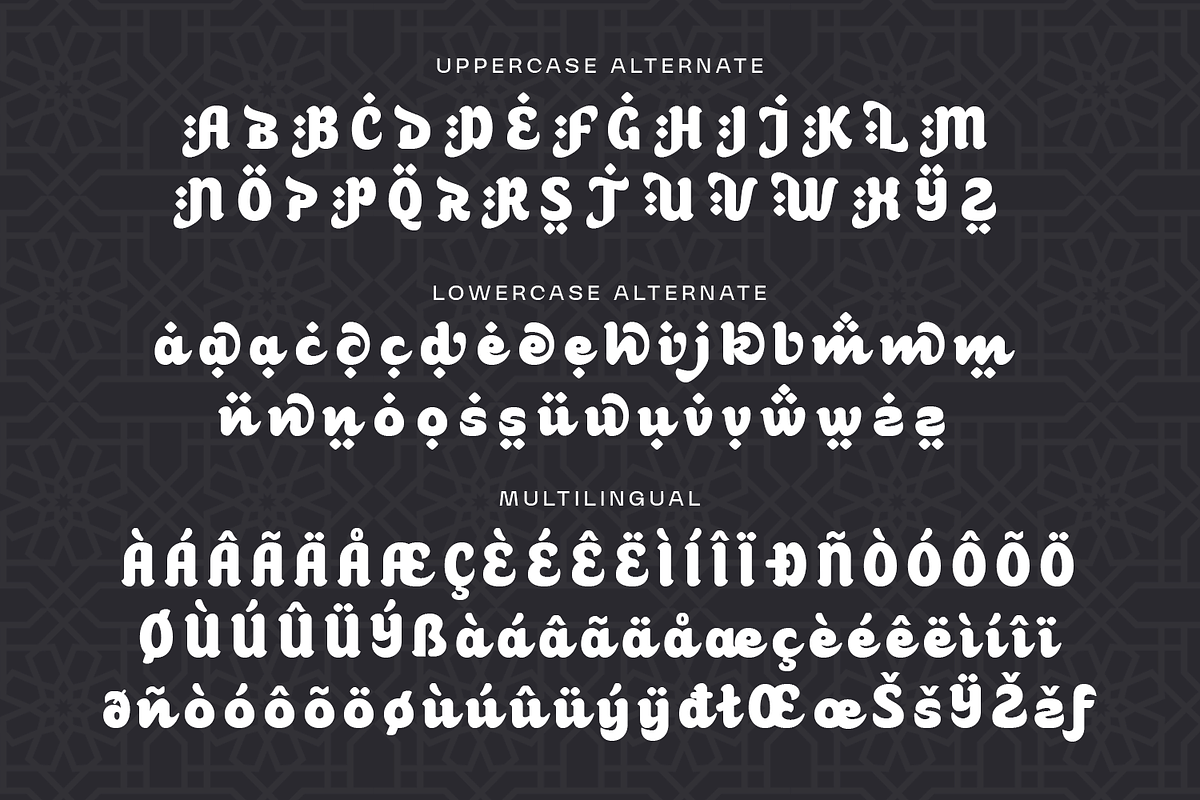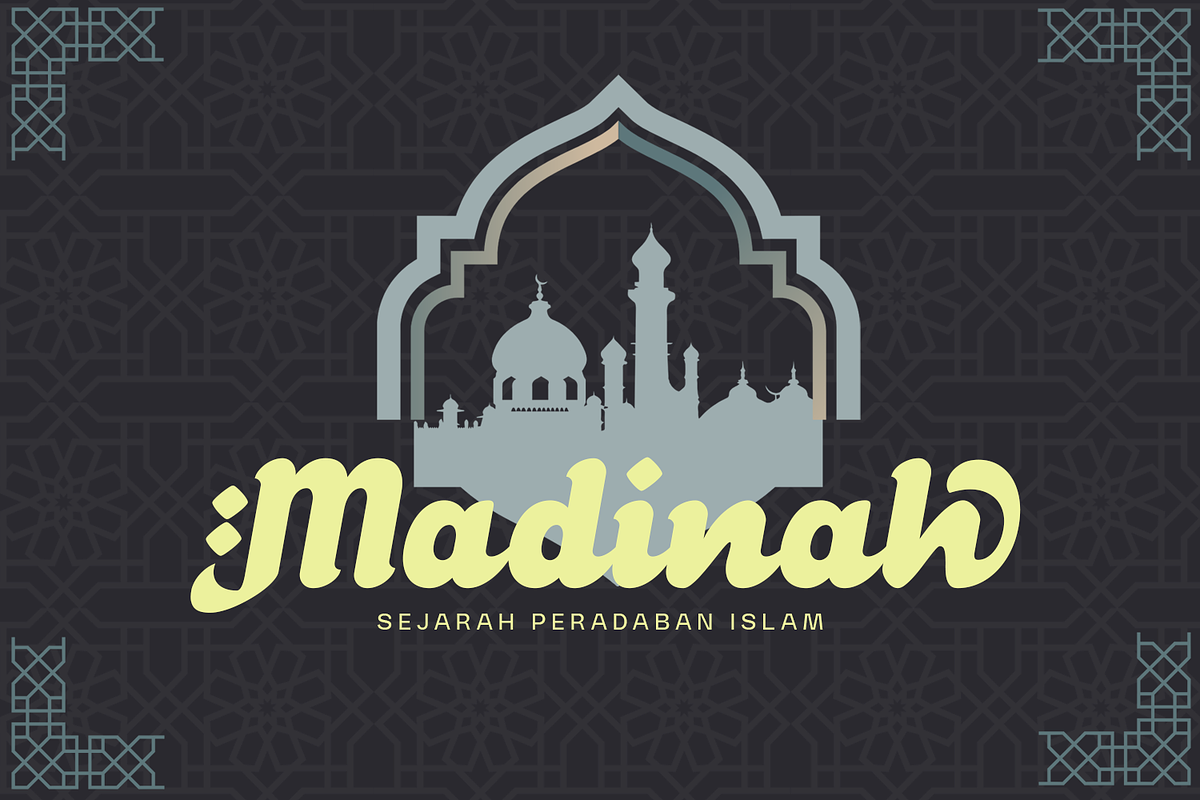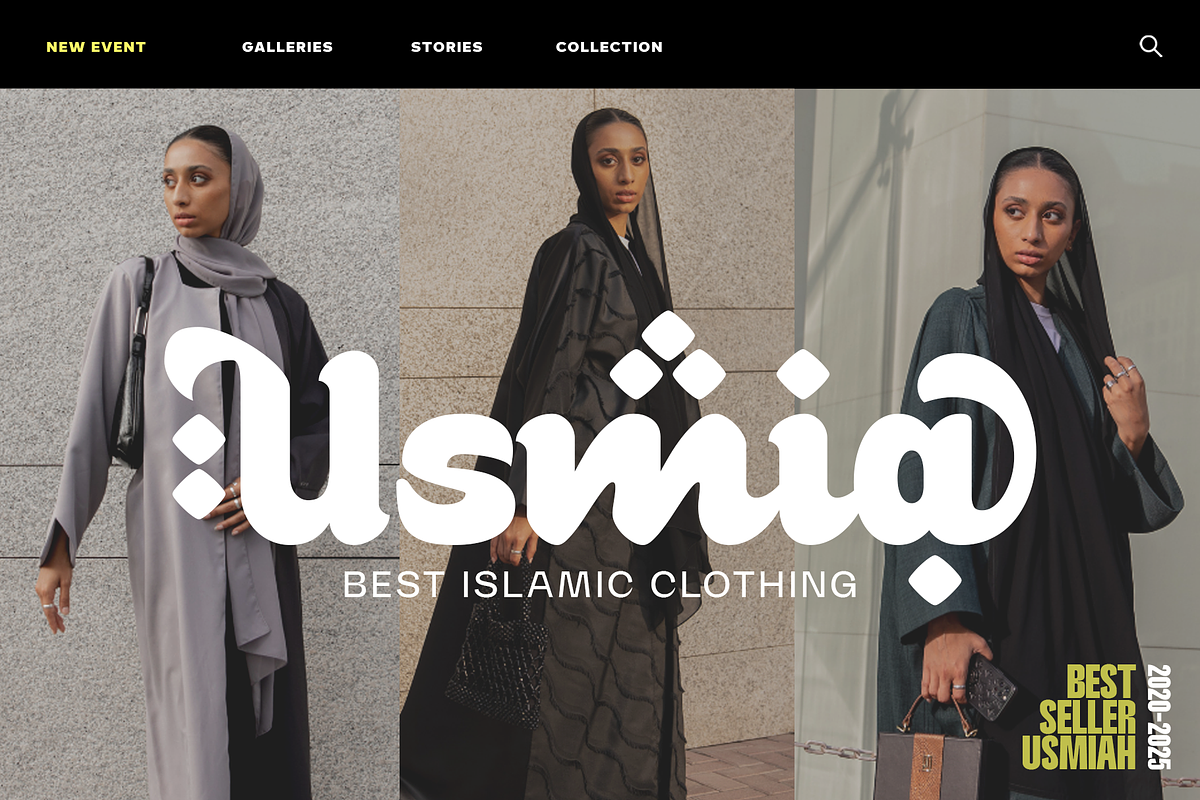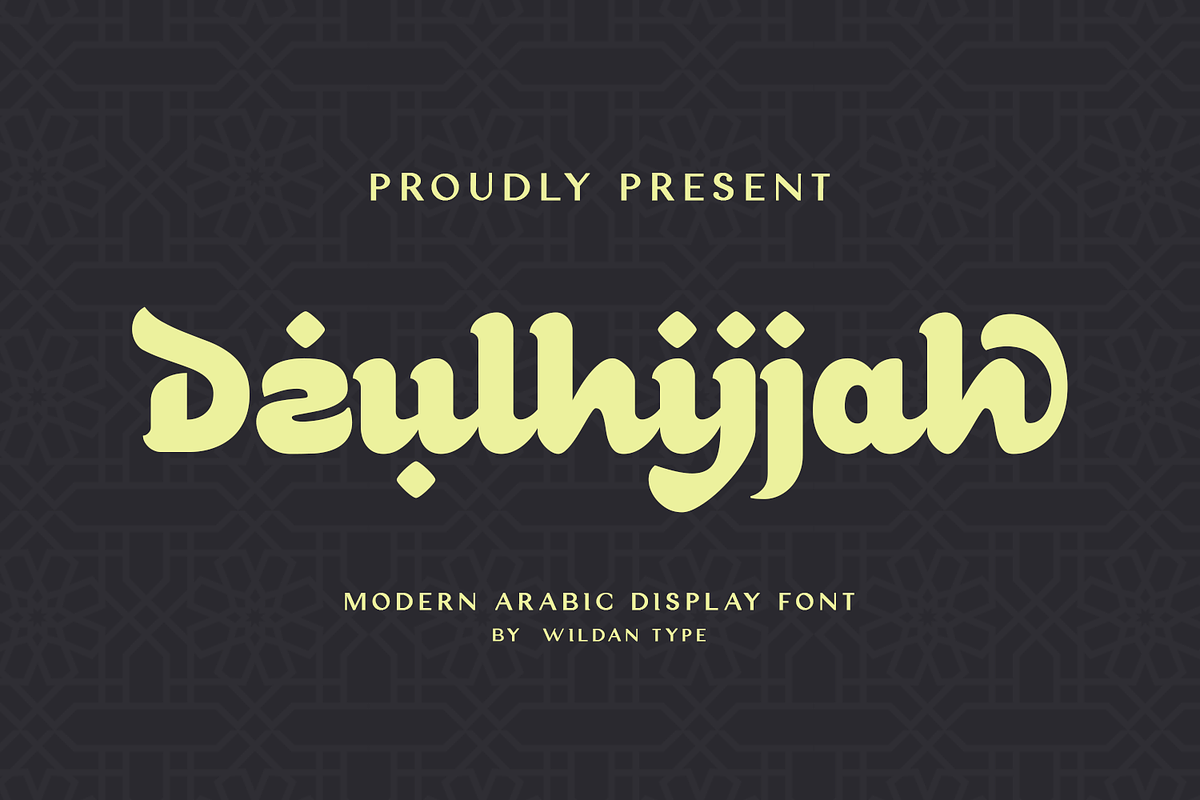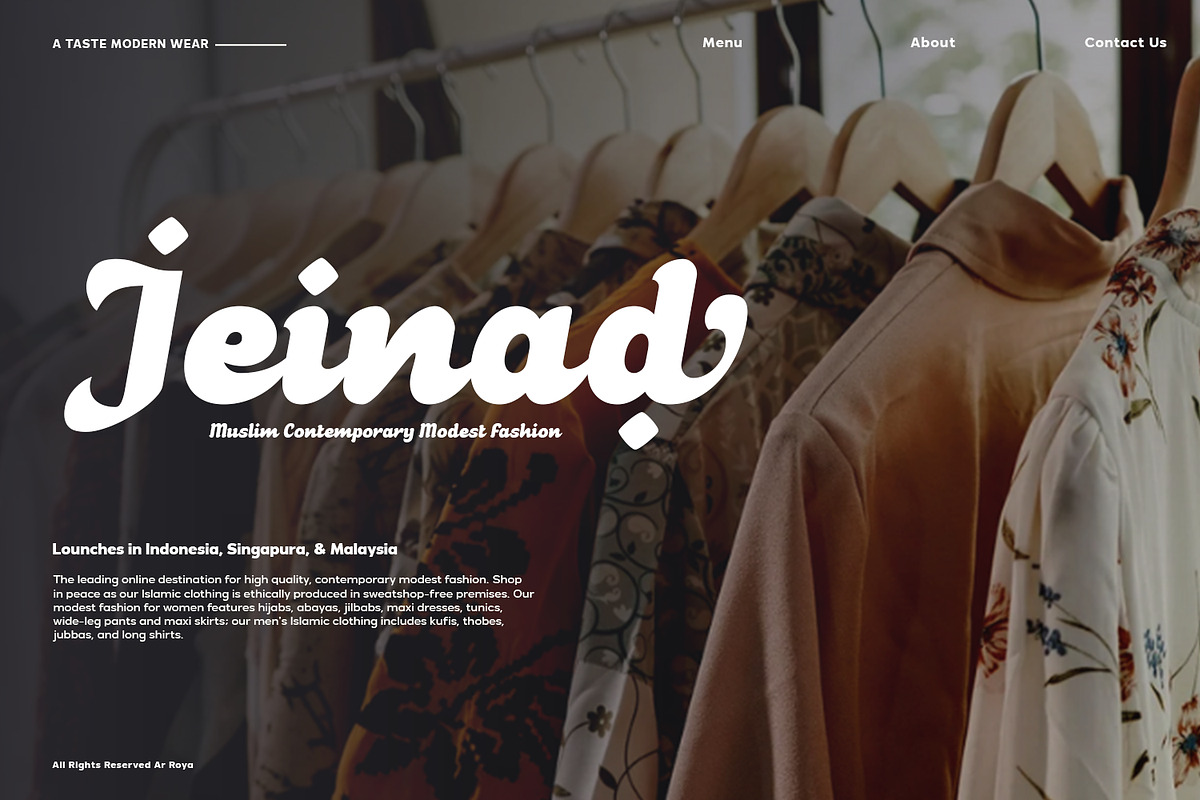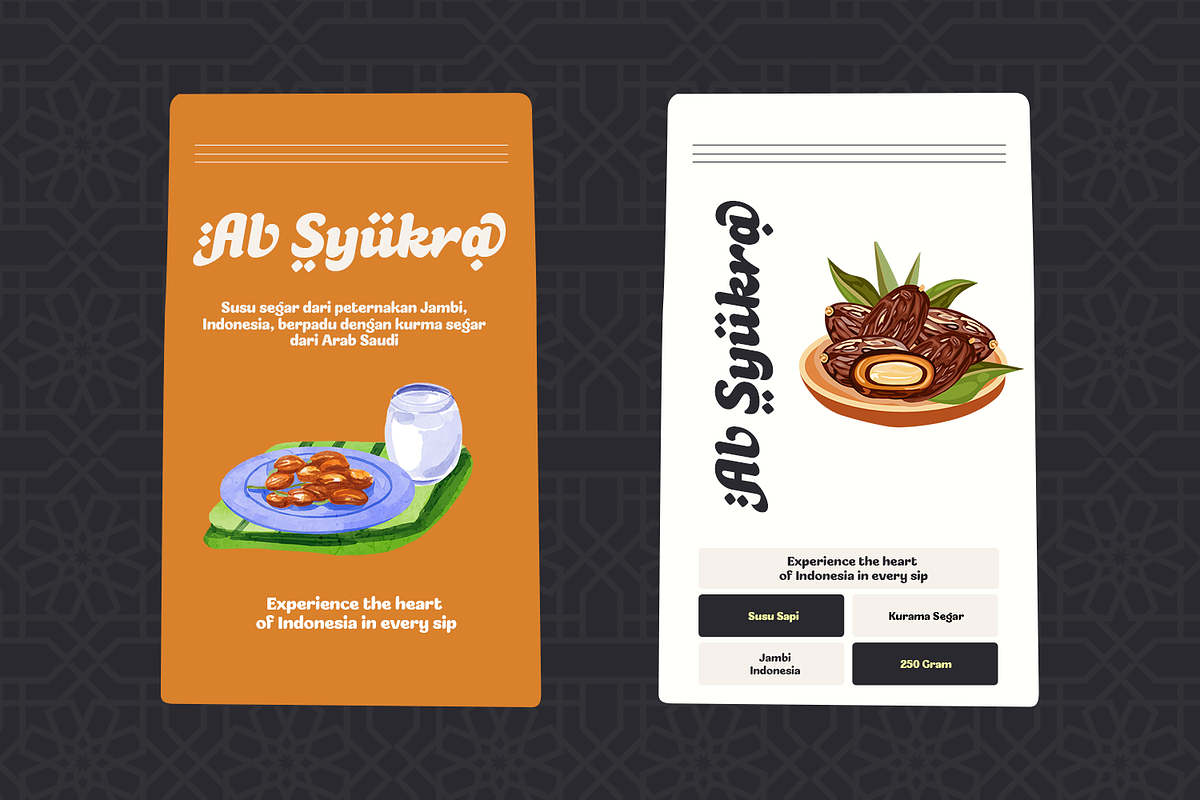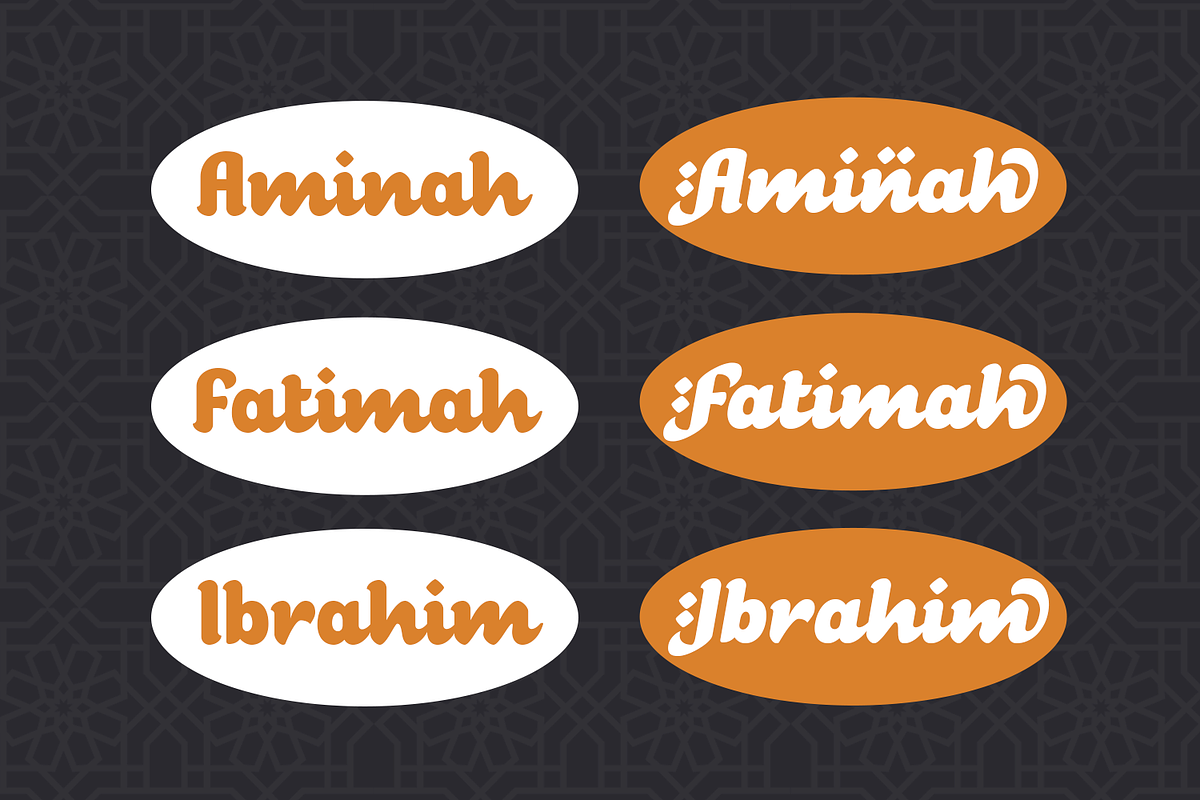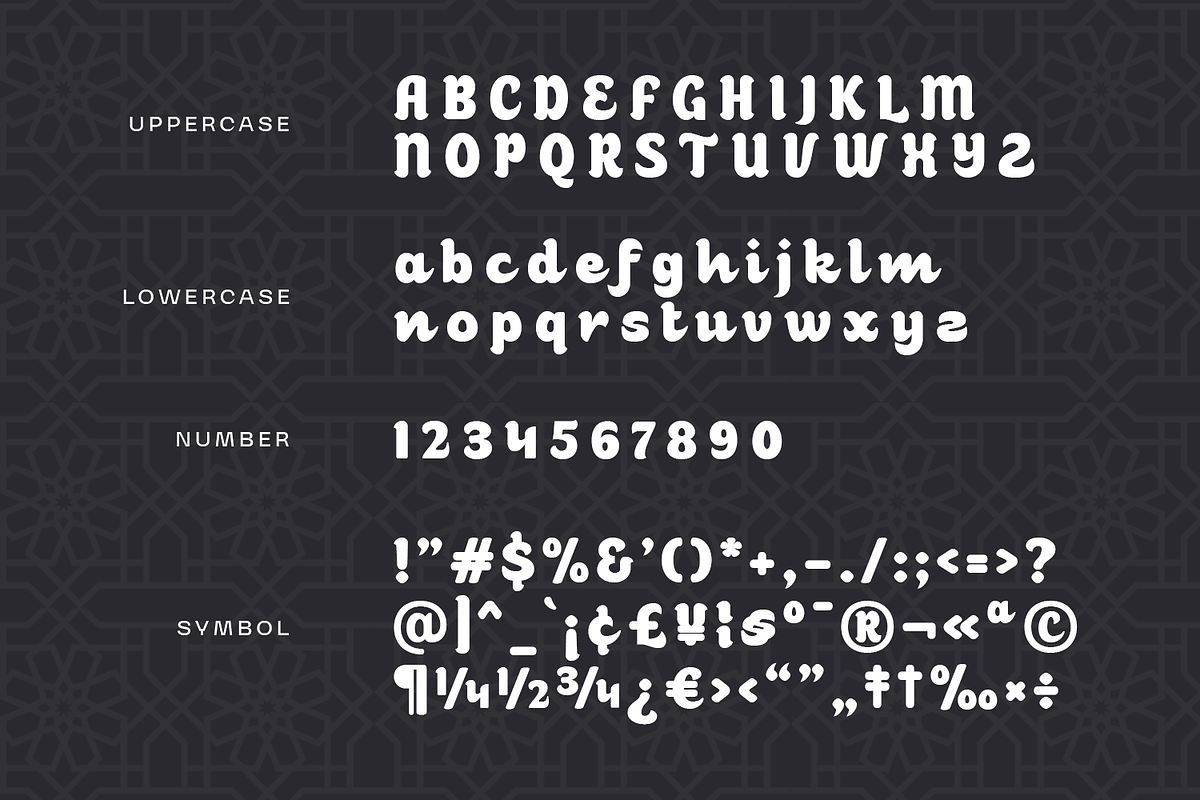
Dzulhijjah
Dzulhijjah is a modern Arabic font, with a warm, soft touch, but still displays luxury. This font is designed to bring a new freshness to your project. Its beautiful curves connected between characters evoke a beautiful, elegant and classy impression.
This font combines Arabic calligraphy with a touch of modern script and serif, presenting a classy font for use in various design needs.
Perfect for branding and high-end product packaging, especially Arabic and Islamic designs. Dzulhijjah will add aesthetics to your design to appear more premium and exclusive.
Multilingual Characters available for:
Afrikaans, Albanian, Basque, Catalan, Danish, Dutch, English, Estonian, Faroese, Filipino, Finnish, French, Galician, German, Icelandic, Indonesian, Irish, Italian, Malay, Norwegian Bokmål, Portuguese, Spanish, Swahili, Swedish, Zulu